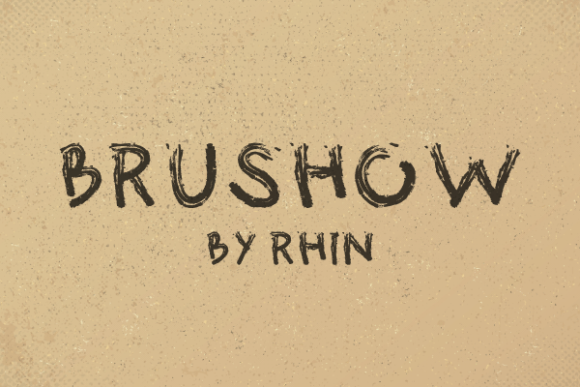
Say hello to Brushow Font, a captivating display font born from the creative minds at RHIN Design. This vintage-inspired beauty is the perfect choice for infusible ink projects, ready to transform your creative visions into stunning masterpieces.
Step into a world of nostalgia and charm with Brushow's effortlessly stylish strokes. Its timeless design evokes a sense of authenticity, adding a touch of history to your modern creations. Whether you're crafting heartfelt cards, designing eye-catching posters, or personalizing your social media posts, Brushow will infuse your words with a timeless elegance that resonates with your audience.
With its versatile nature, Brushow effortlessly adapts to a wide range of projects. Its bold, confident strokes command attention in headlines and titles, while its graceful curves lend a touch of sophistication to body text. Experiment with different sizes and colors to create captivating visuals that leave a lasting impression.
Unleash your creativity and let Brushow take center stage. Its user-friendly design makes it a breeze to incorporate into your projects, whether you're a seasoned designer or just starting out. Embrace the simplicity and charm of this vintage gem and watch as your creations come to life with a touch of timeless elegance.